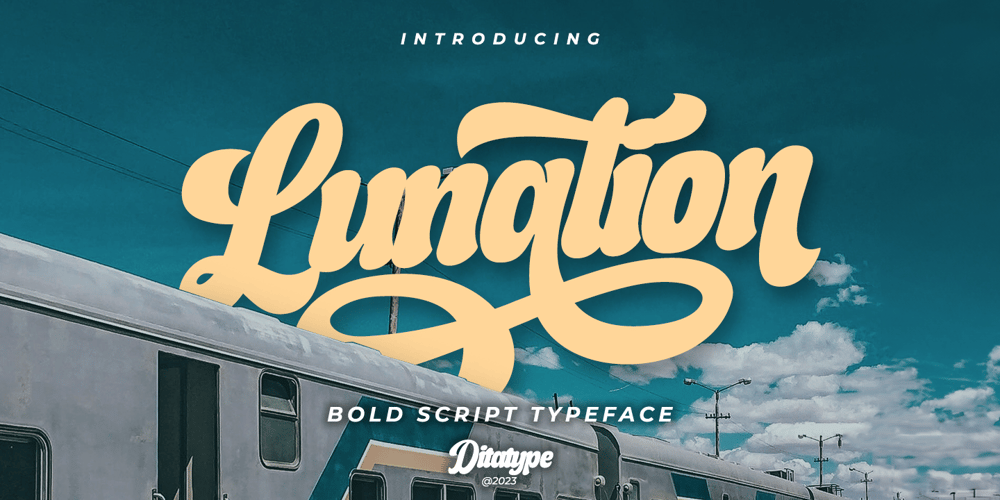
Lunation Font Family was designed by Donis Miftahudin and published by Ditatype. Lunation contains 1 styles and family package options. Lunation is a versatile script font that marries the charm of script fonts with a contemporary twist. Crafted with a fairly bold weight to command attention. Its slightly reduced contrast ensures that each character stands out clearly, providing optimal readability in various design applications.The defining characteristic of Lunation is its carefully crafted swinging endings. These artistic flourishes gracefully embellish specific letters, lending an air of sophistication to your text. The subtle yet distinctive curves and sweeps add a playful rhythm. Lunation fits in headlines, logos, posters, flyers, invitations, branding materials, print media, editorial layouts, and many more designs. Find out more ways to use this font by taking a look at the font preview.